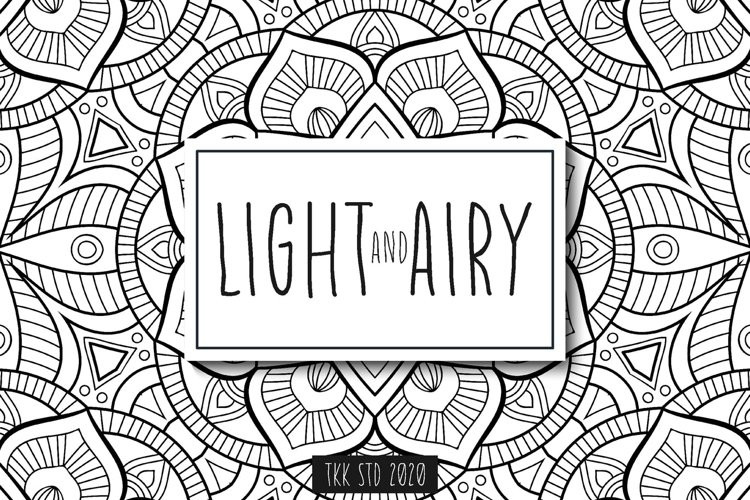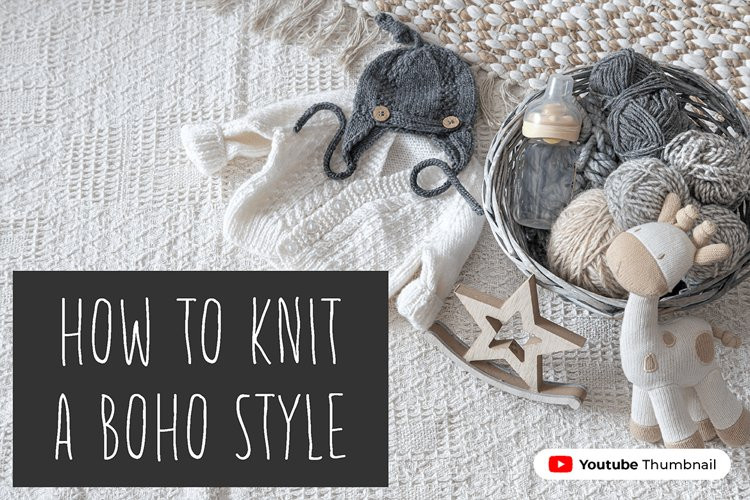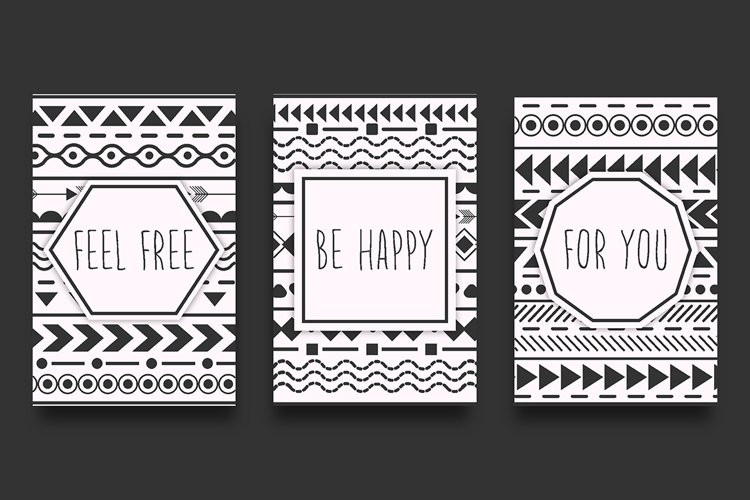
Light And Airy Font
Light and Airy is a unique handwriting font with condense shape, tall and slim, with feminine touch in every word it is written.
Suit perfectly for doodle font, food packaging writing, cafetaria wall scribble font, children book cover, children school product , instagram story writing, social media post, facebook post, choldren poster, wall paper illustration, catch phrase stickers, magazine, youtube covers, youtube thumbnails, instagram, and other social media page covers and so on…